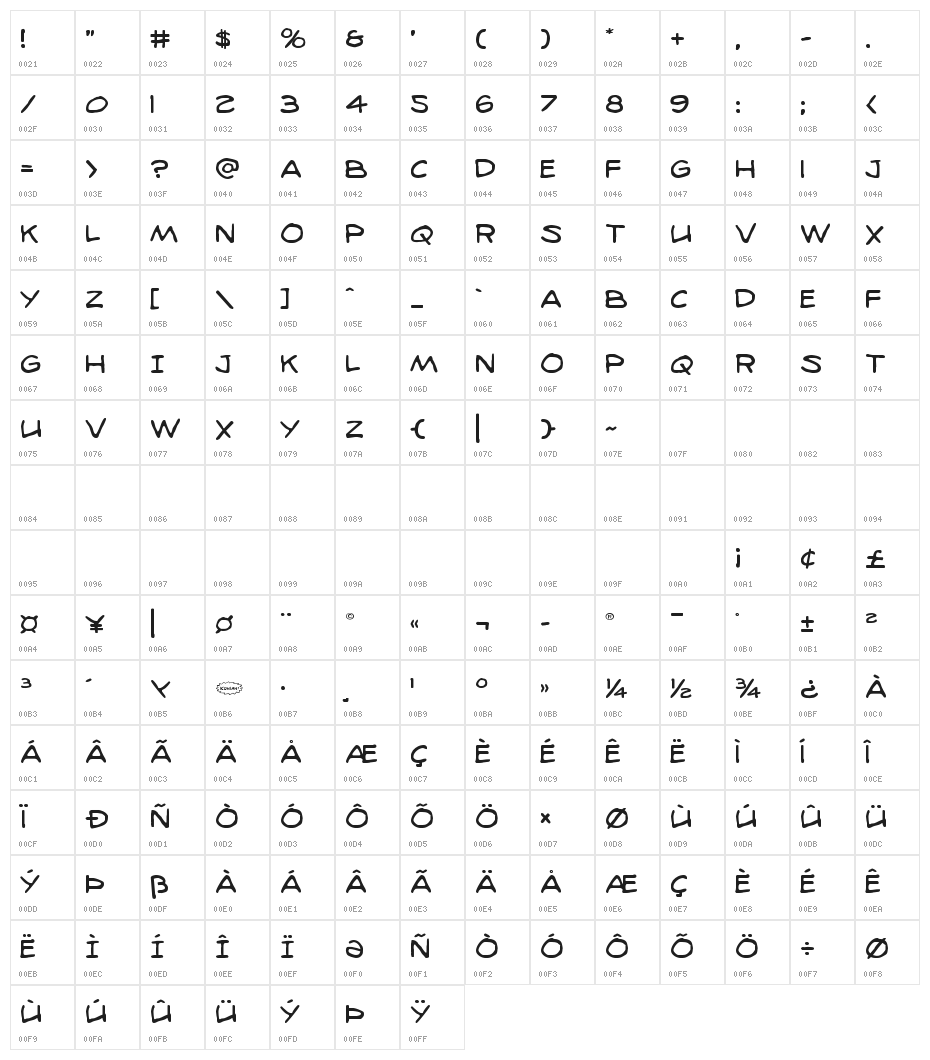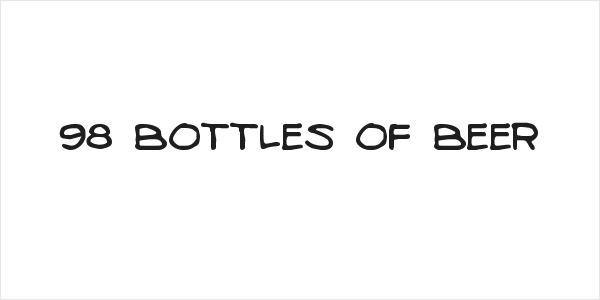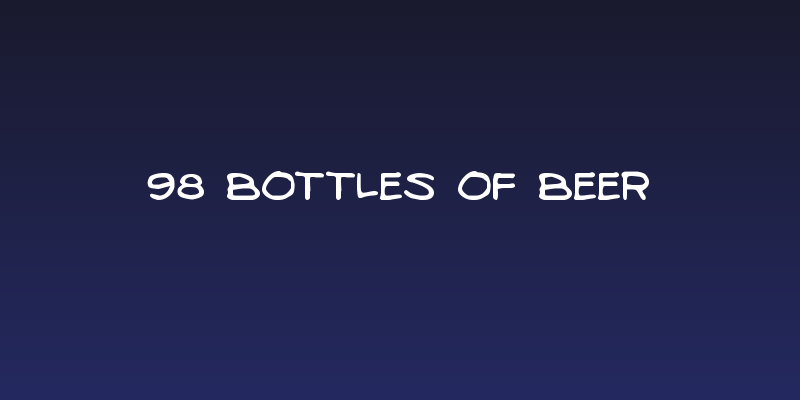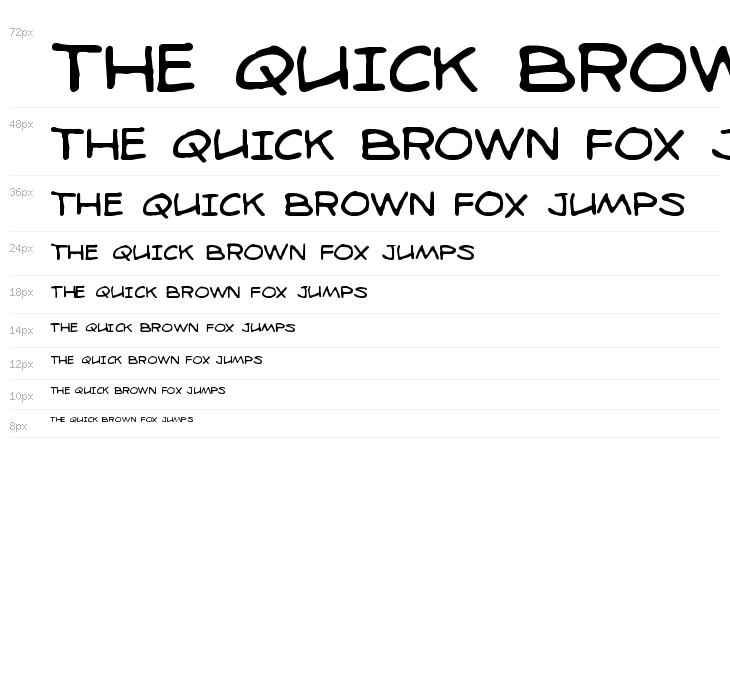
98 Bottles of Beer Font
98 Bottles of Beer Description
This font features a playful and informal style, characterized by its hand-drawn appearance. The letters have a slightly uneven baseline, giving them a casual and approachable feel. The strokes are bold and rounded, with a consistent thickness throughout, which adds to the font's friendly and whimsical nature. The characters are well-spaced, providing good readability while maintaining a relaxed aesthetic. This font includes both uppercase and lowercase letters, numerals, and a variety of special characters, making it versatile for different design needs.